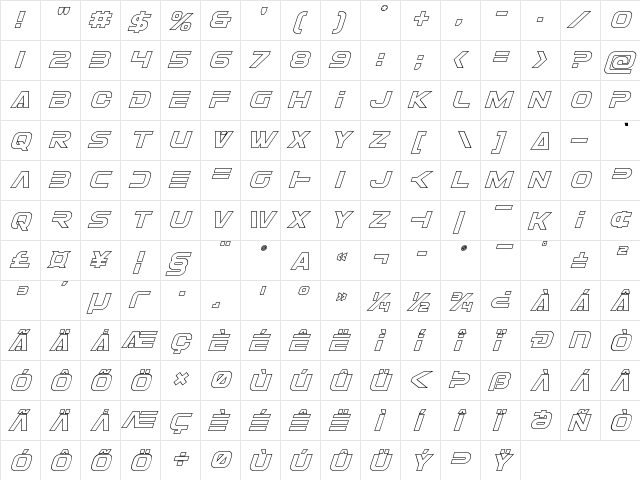
Eurofighter Outline Italic Outline Italic
Design Context for Eurofighter Outline Italic Typeface
Eurofighter Outline Italic brings ornamental detail and strong personality to headlines and identities, where visual impact matters more than quiet functionality. The slanted form adds forward momentum and visual energy.
Font Pairing: Pair with a clean neutral sans-serif for body copy to let Eurofighter Outline Italic's character lead without overwhelming the composition.
Pro Tip: Use Eurofighter Outline Italic exclusively at display sizes — it was designed to be seen, not read at length. Let a neutral companion handle body copy.